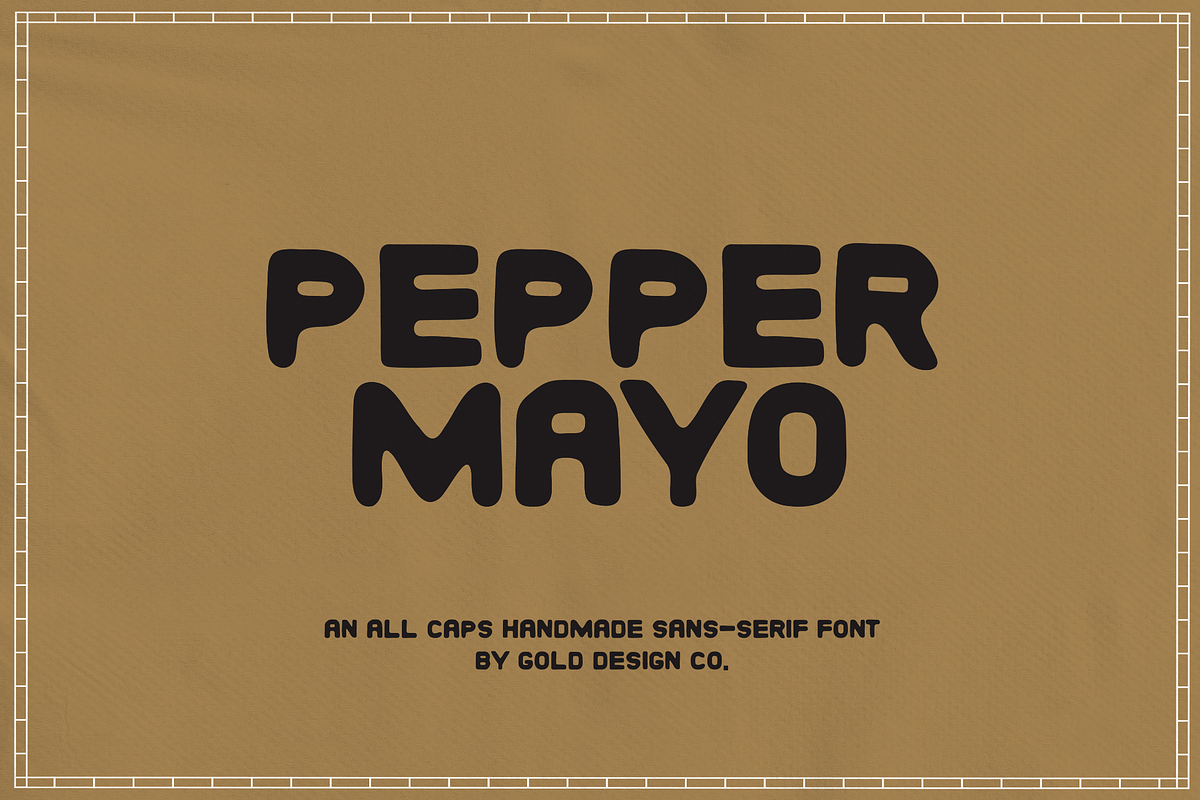
Pepper Mayo | Handmade Sans-Serif Free Download
Pepper Mayo | Handmade Sans-Serif Font Free Download is a playful and authentic typeface that combines the simplicity of sans-serif design with a handcrafted touch. Please note, you are required to purchase this font for commercial use. It is available for free download for testing and personal projects only.
With its slightly irregular lines and casual vibe, Pepper Mayo is perfect for branding, food packaging, lifestyle blogs, social media graphics, and anything that needs a fun yet modern feel. It delivers personality without sacrificing readability—making it ideal for both digital and print use.